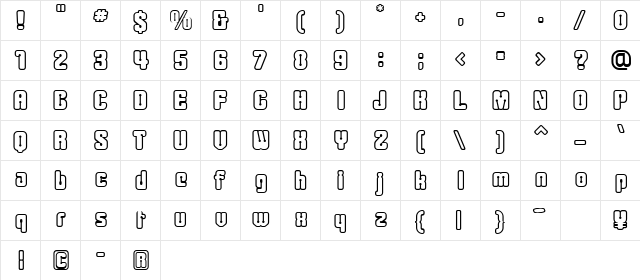
Clipe Open
Design Context for Clipe Typeface
Clipe offers clean, dependable letterforms without strong stylistic allegiance, making it a practical choice for designers who need flexibility.